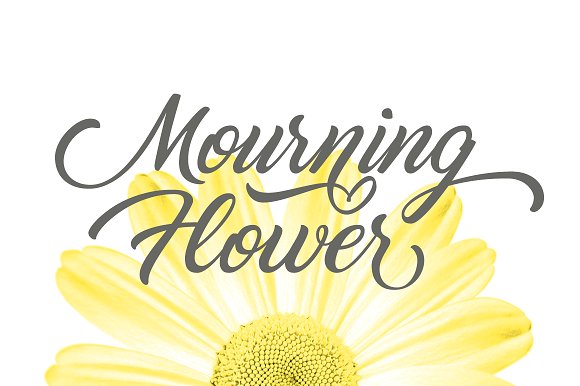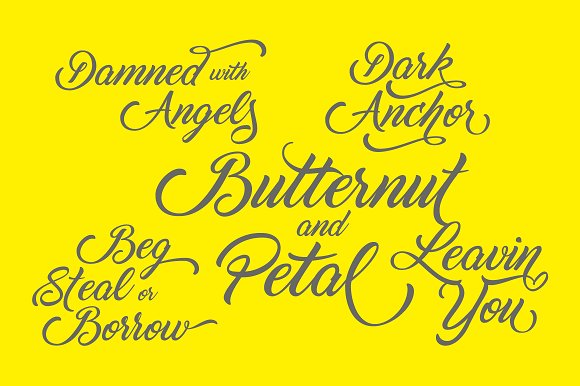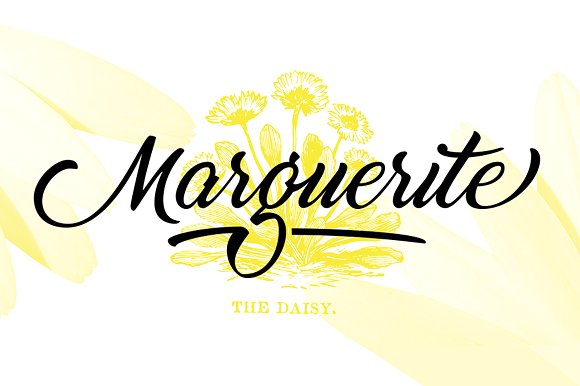
Marguerite Script Font
Marguerite (Daisy in french) is a smooth and fresh script font, with soft curves and natural connexions. The full commercial version is provided with a set of alternate glyphes and ligatures. This font contains: Uppercase & Lowercase font Stylistic Alternates Ligatures Symbols & Punctuation OpenType Features Please note that OpenType Features require a software such as Photoshop/ Illustrator CC. Many thanks !